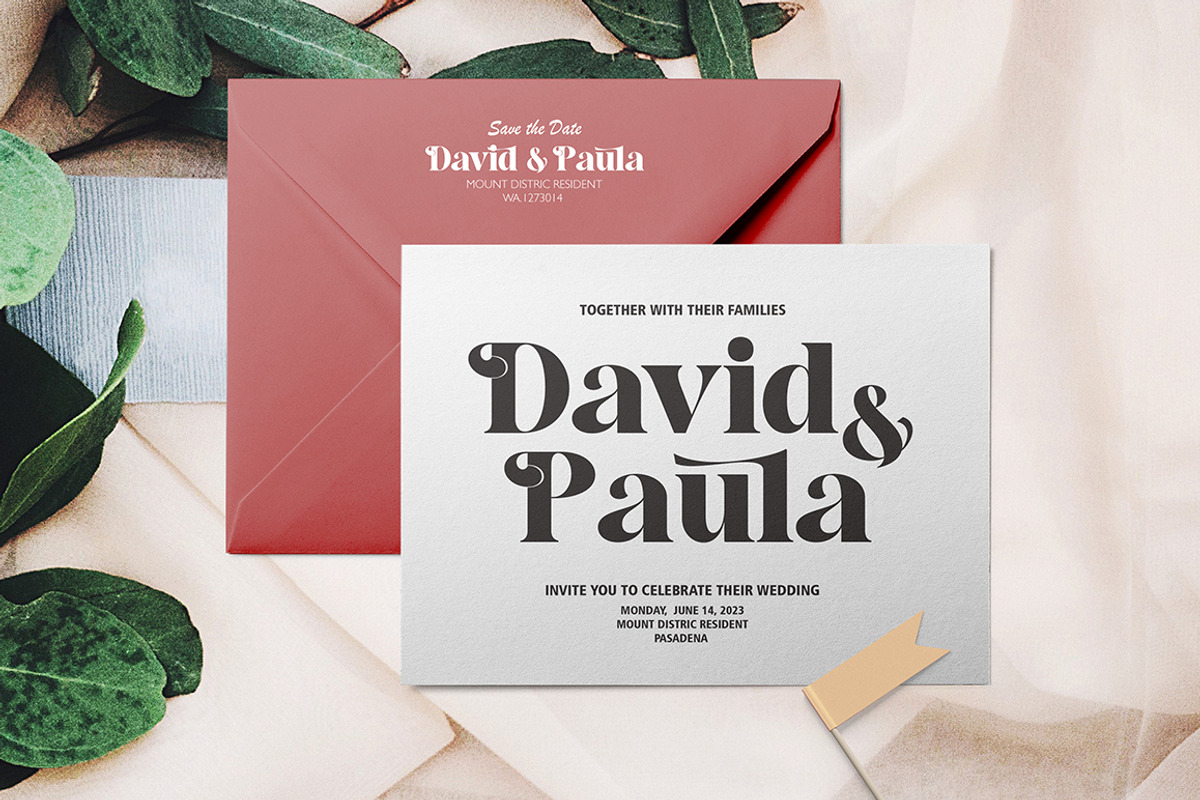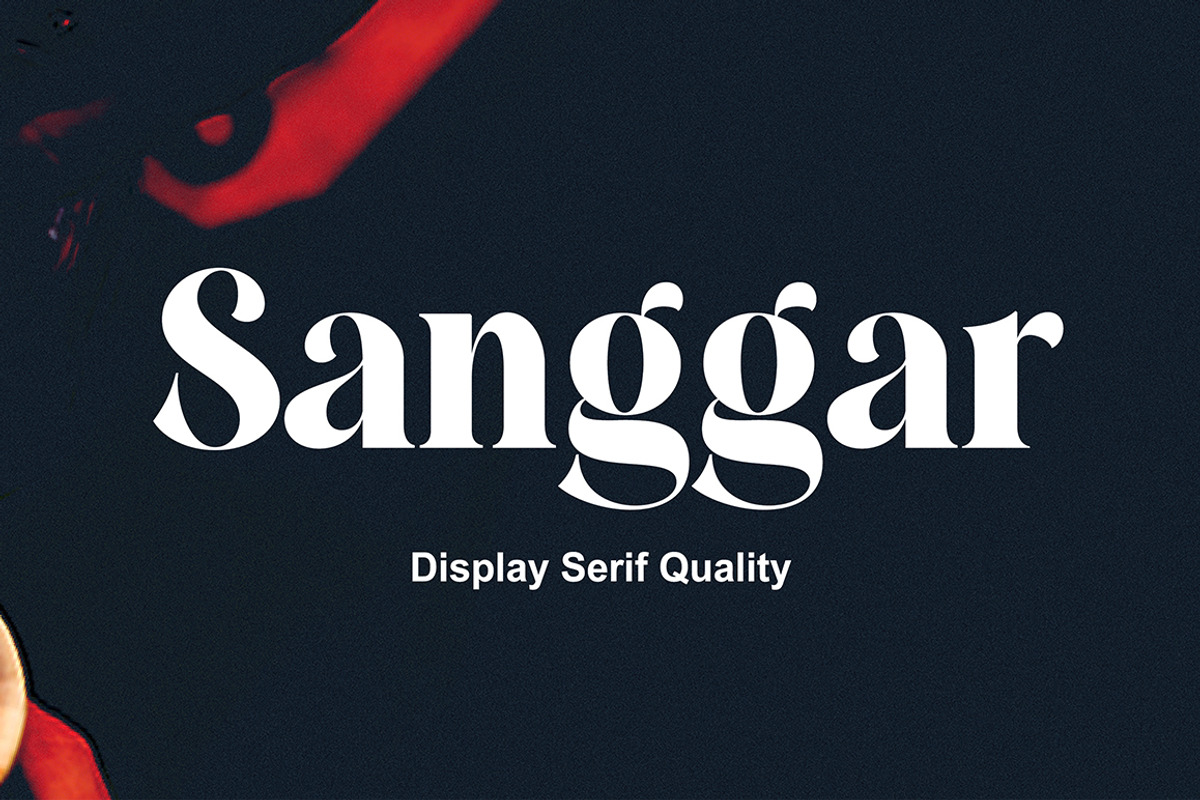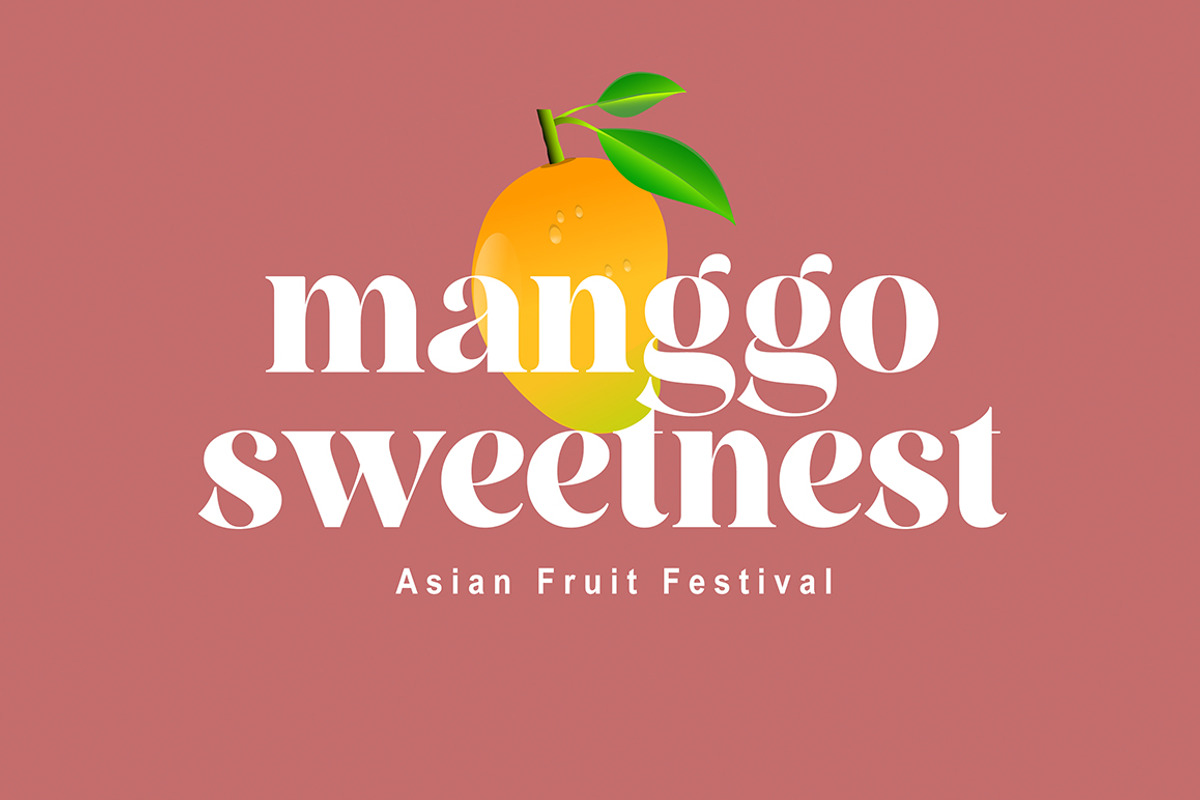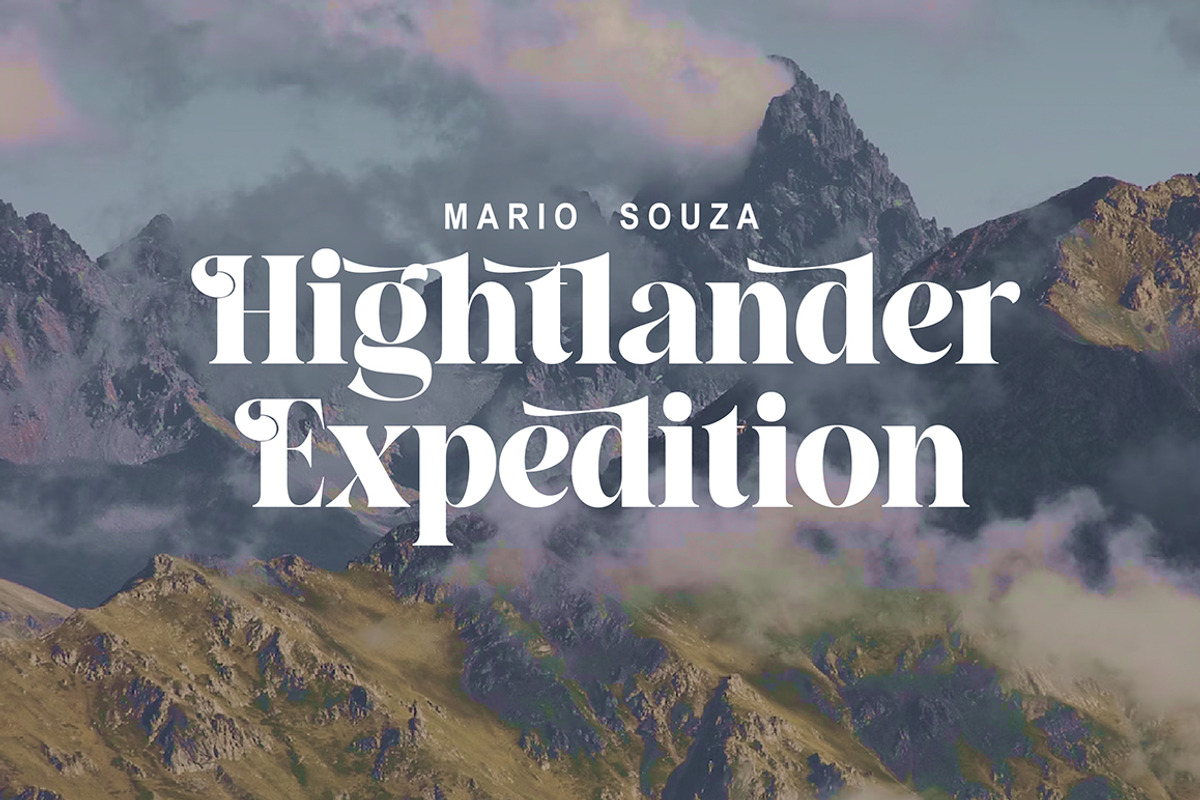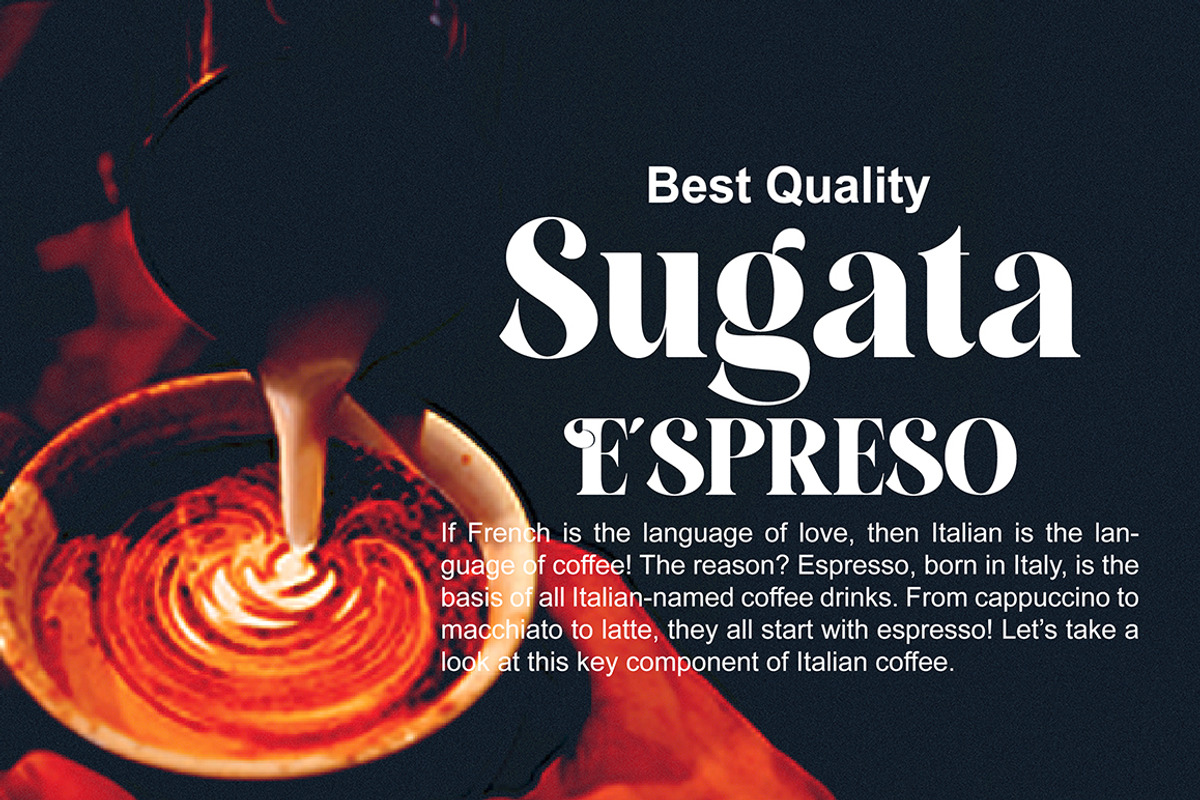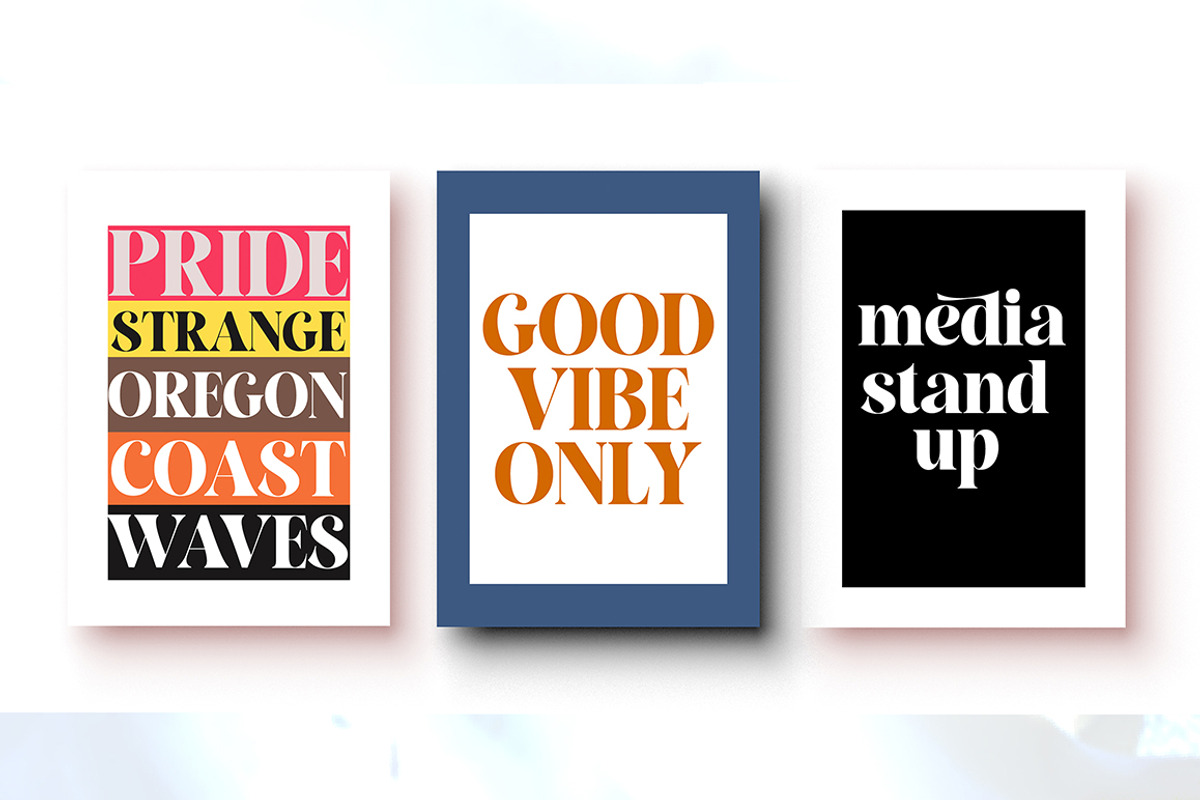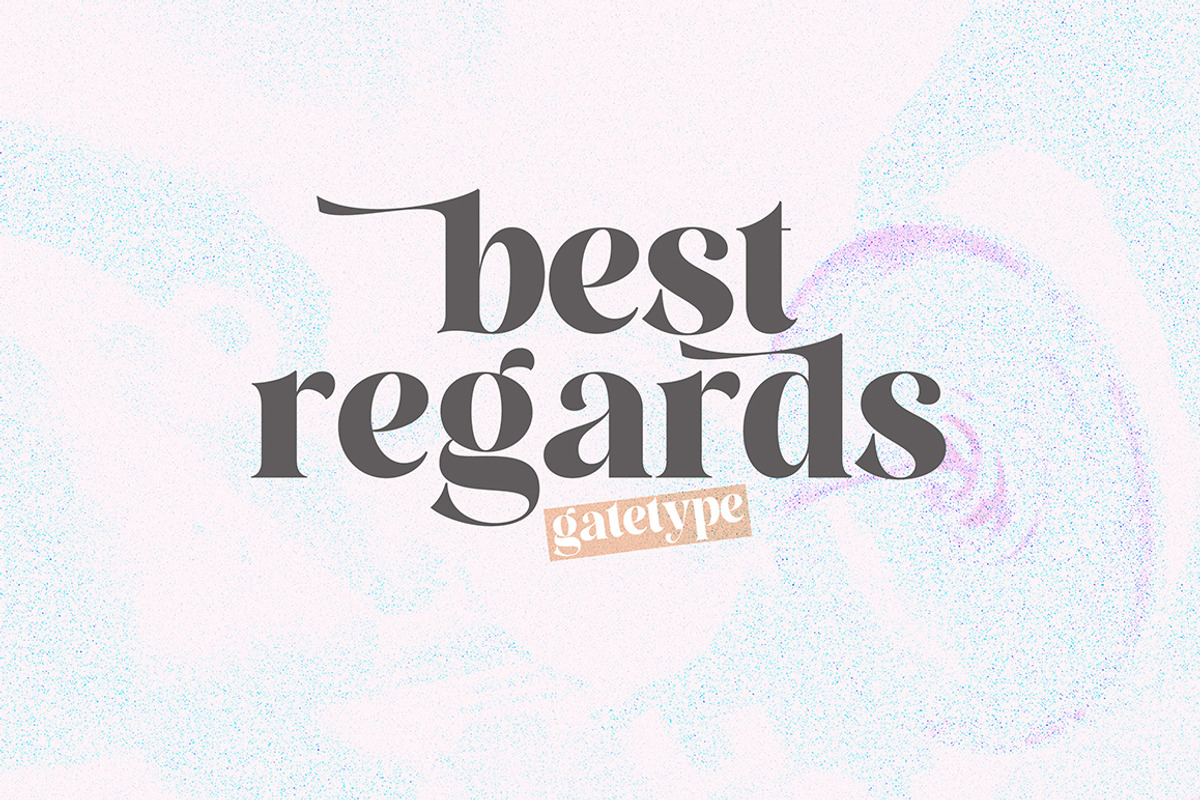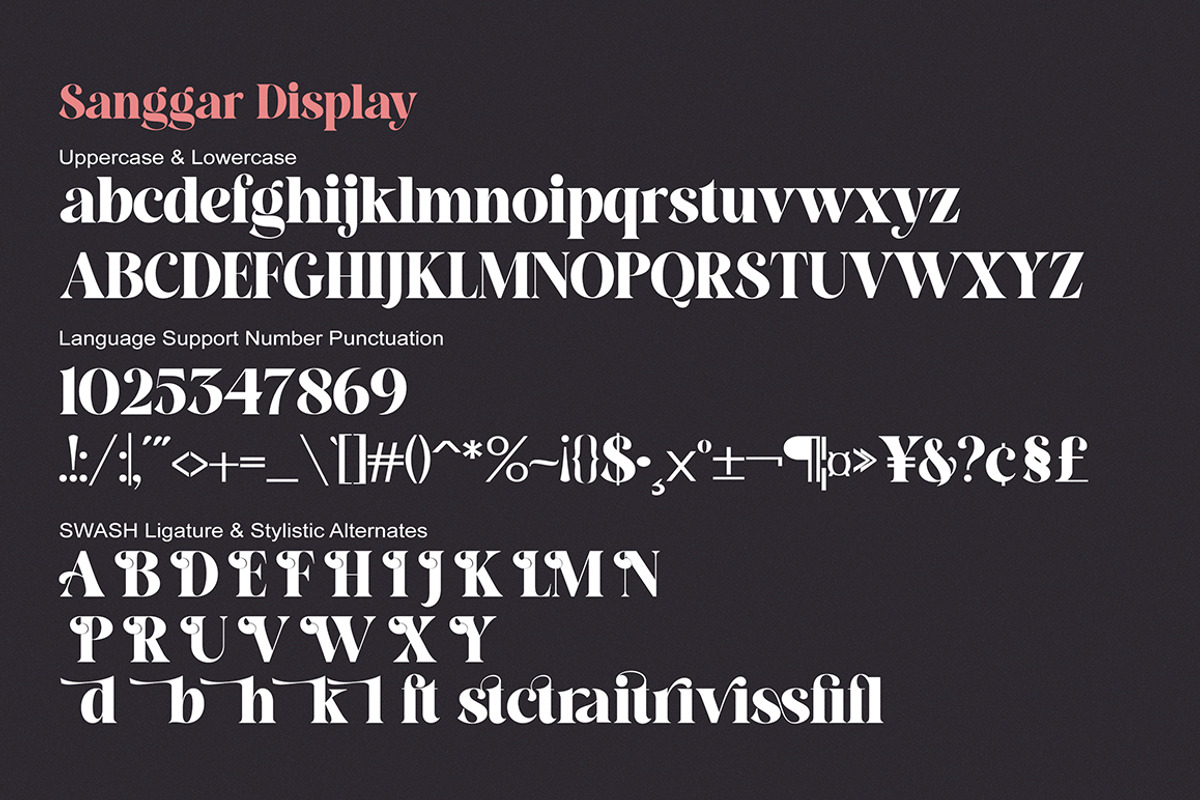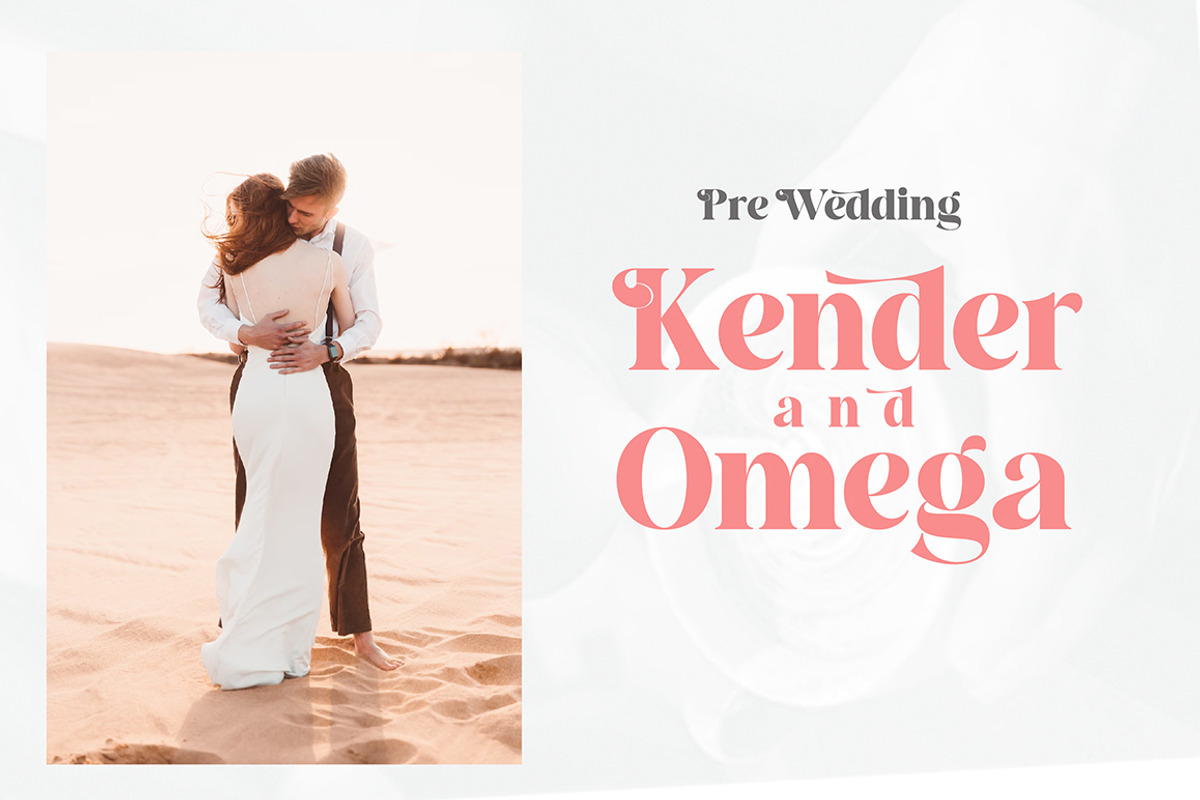
Sanggar
The newest Sanggar serif font, which is iconic and skilled with many unique alternative styles, based on our experience as graphic designers working in many companies, we are often asked to design logos with a unique style but with an elegant shape. So, we tried to create a Studio type and create this font to get the idea out. It is perfect for BRANDING and LOGO DESIGN. You will get a classy, elegant, and of course unique logo with this font.